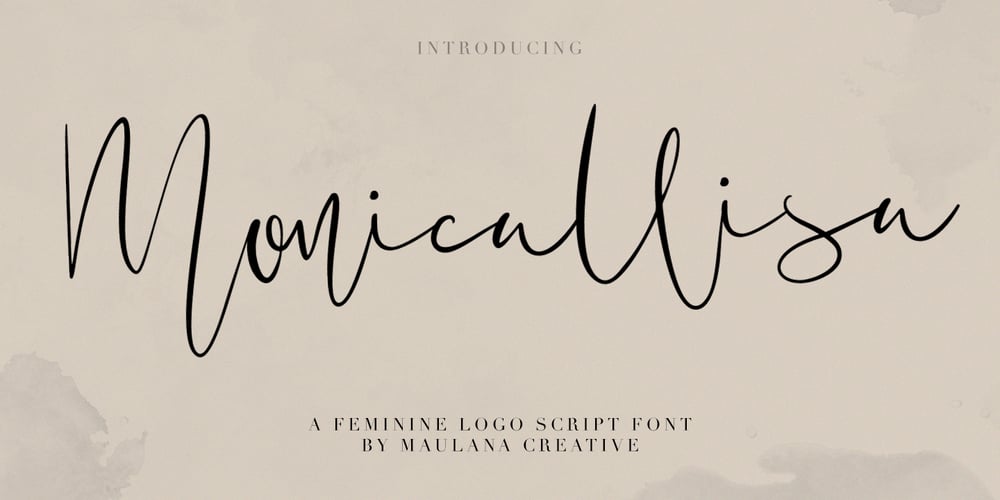
Monicallisa
Monicallisa font
Monicallisa Font Family was designed by Gilang Maulana and published by Maulana Creative. Monicallisa contains 1 styles and family package options. Monicallisa Feminine Logo Script Font is handwritten modern stylish fonts, combines from classic to modern typeface with a elegant baseline. Can be used for various purposes, such as headings, signature, logos, wedding invitation, t-shirt, letterhead, signage, lable, news, posters, badges etc.